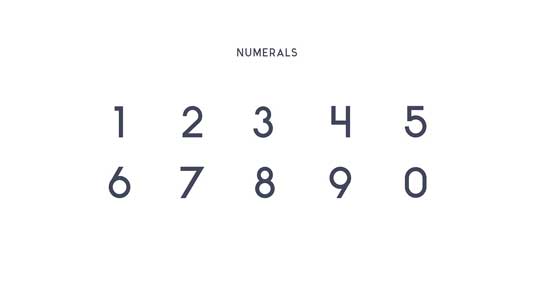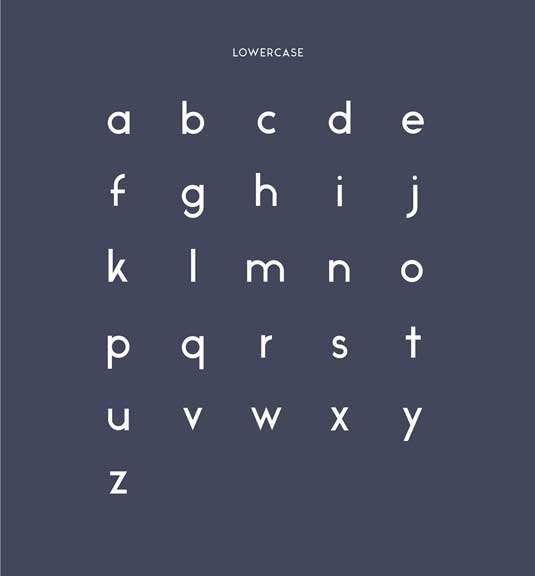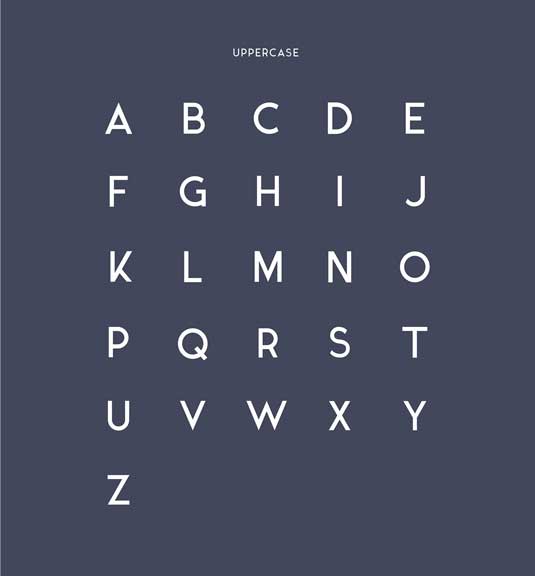
Font of the day: Ikaros
Every day we showcase the best fonts on the web. Today it's Ikaros by Matt Ellis, which is totally free to download.
Ikaros by Matt Ellis
Today's typeface of choice is Ikaros, created by graphic designer Matt Ellis. A modern, minimal design, Ikaros is great for posters, logos, packaging and more.